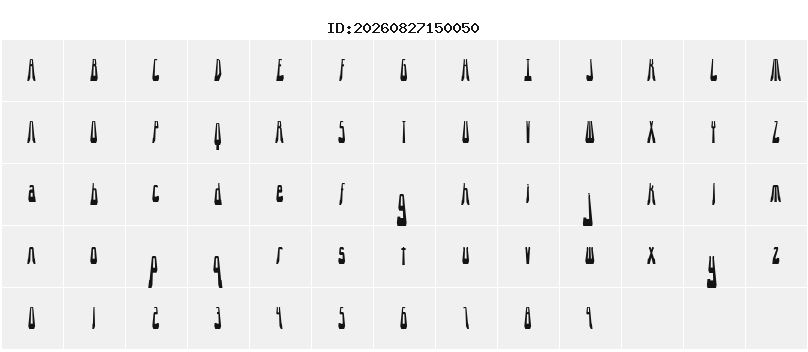
• Font Name: 10.15 Saturday Night BRK
• Full Font Name: 10.15 Saturday Night BRK
About 10.15 Saturday Night BRK.ttf
10.15 Saturday Night BRK.ttf is a modern, elegant sans-serif font designed for ultimate readability and visual harmony. Perfect for branding, headlines, web design, and print materials.